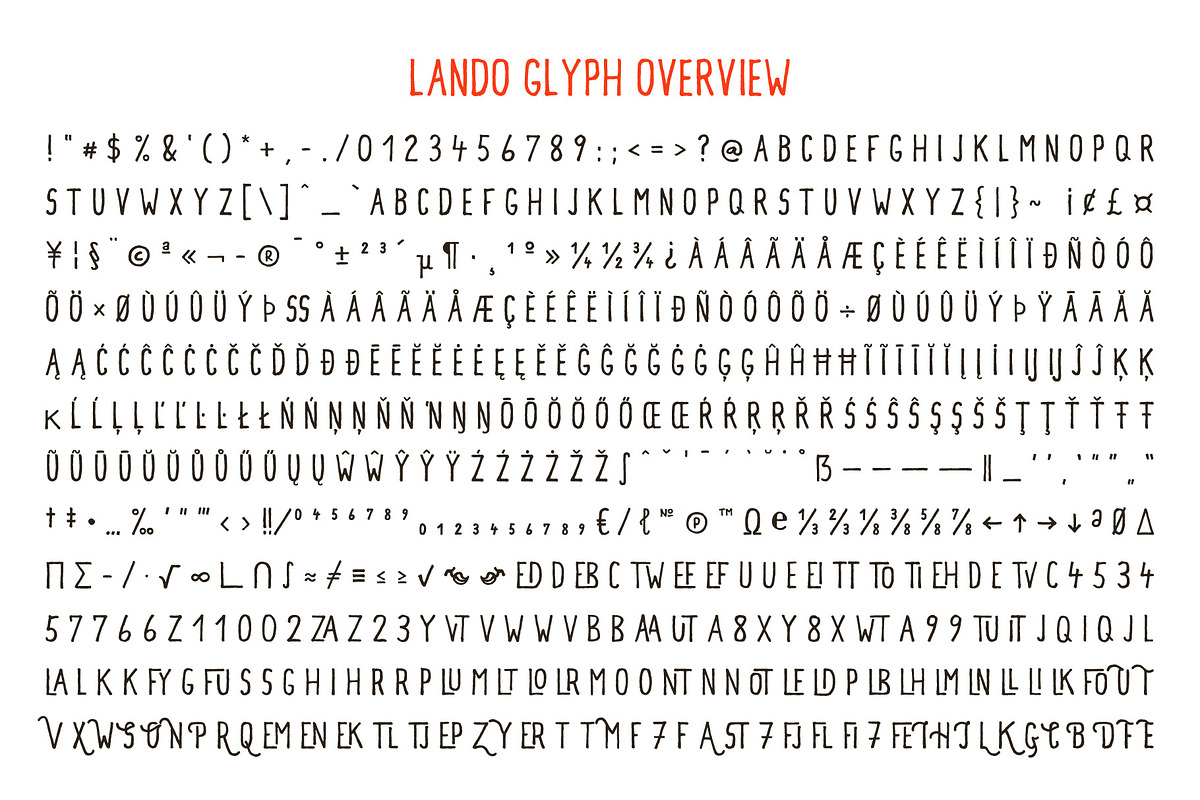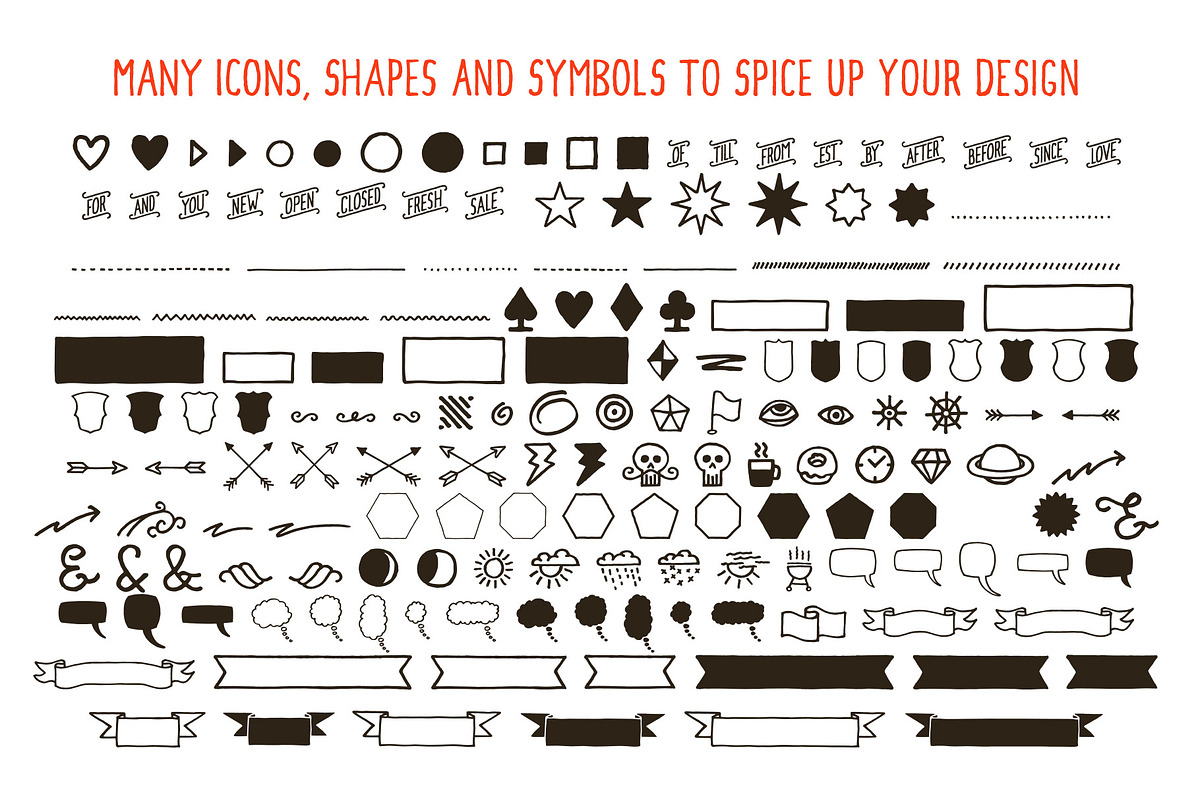
Lando
Introducing Lando - a handmade uppercase type family with a natural character.
Lando comes in two styles with two weights each. Its characters have been drawn by hand to give them a warm and authentic look. Lando’s appearance is enhanced by two contextual alternates for each Latin character and all numbers. In addition, all fonts contain many open type functions such as swashes and initials, a selection of ligatures and support of open type fractions. It is rounded up by many handy extras, such as shapes and icons, catch words, bullets and much more.
Lando is intended to work best in logos, posters, magazine headlines and on packaging and apparel. But it also feels comfortable with short texts, due to its support of many latin languages.